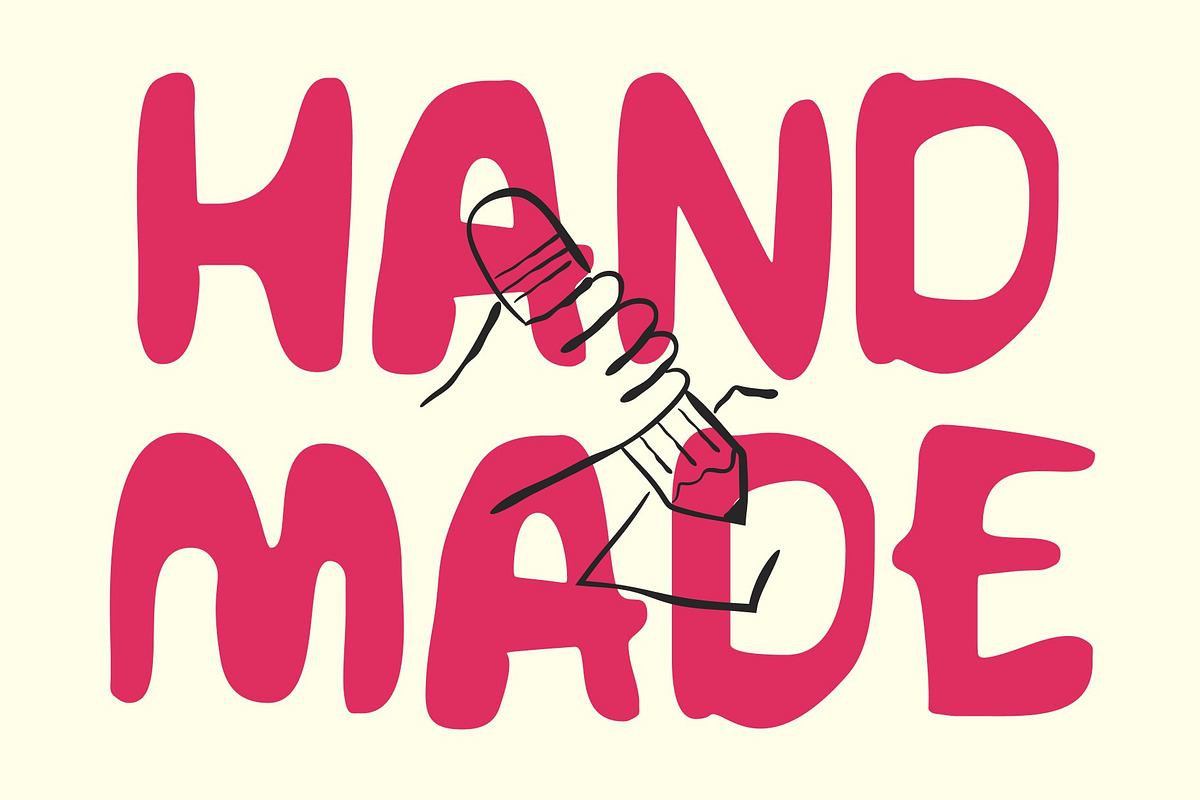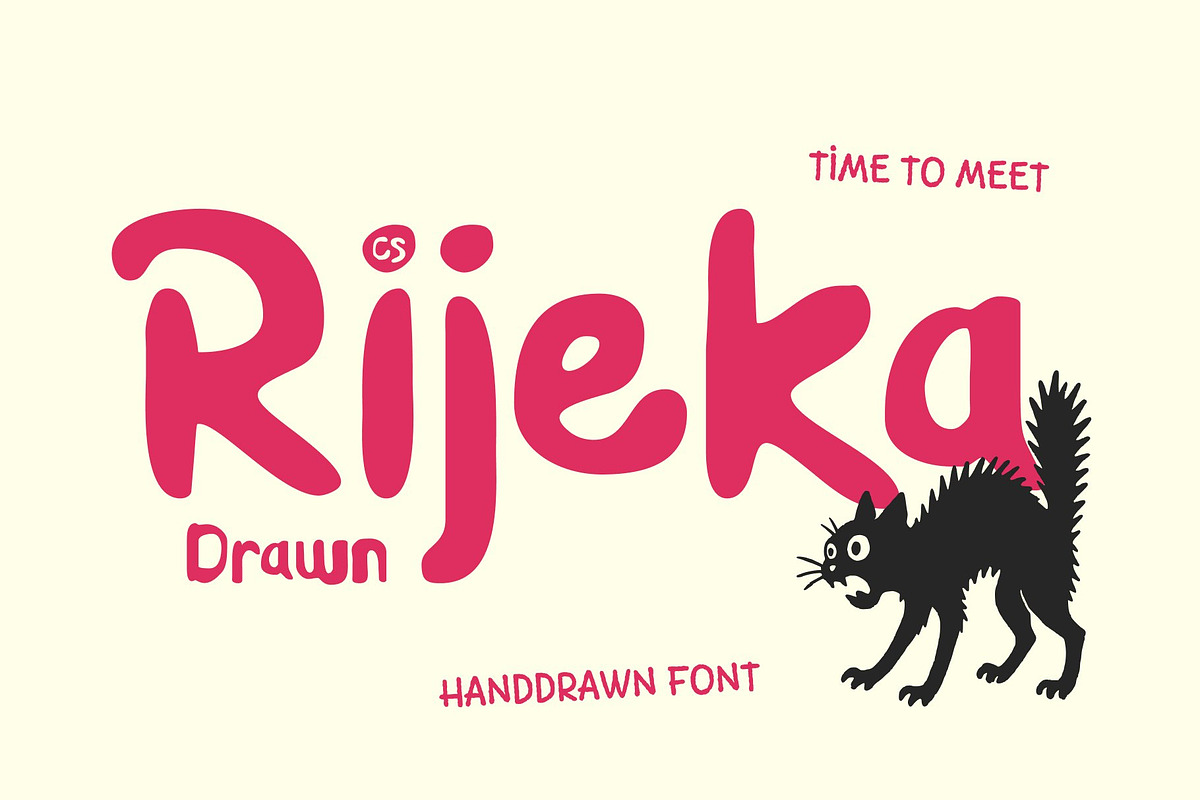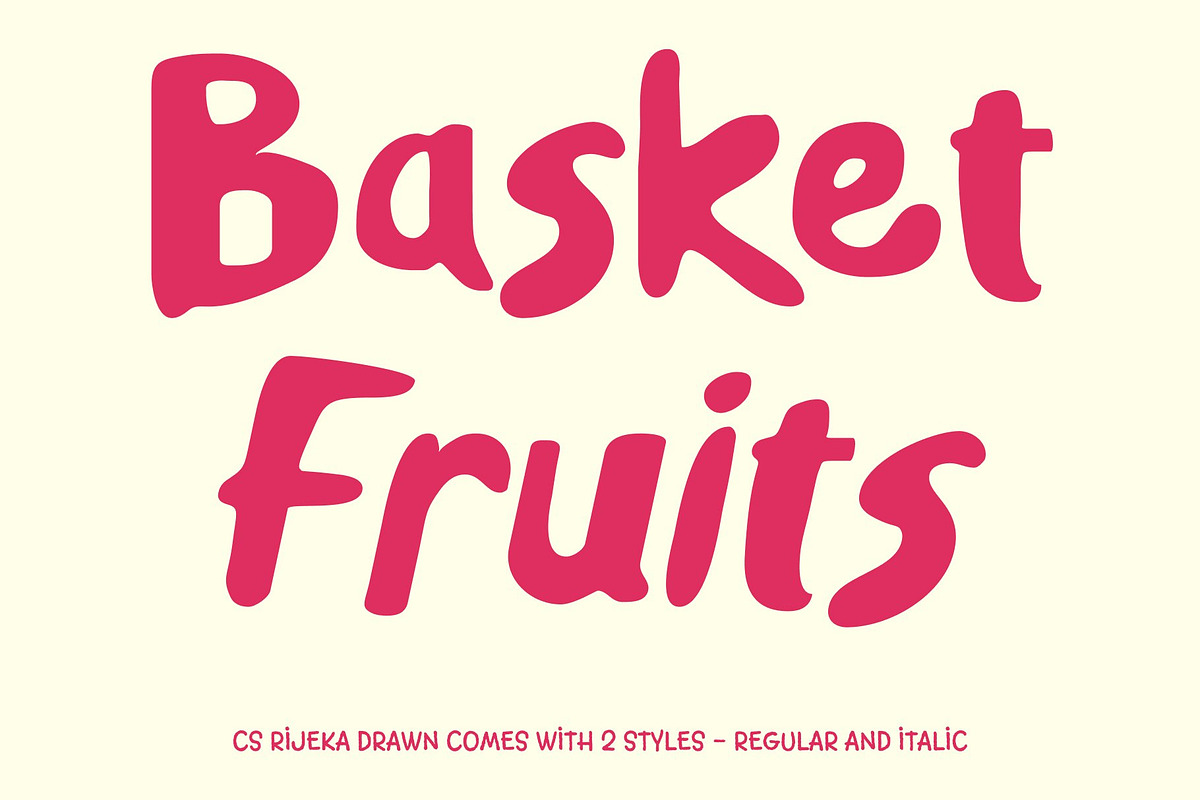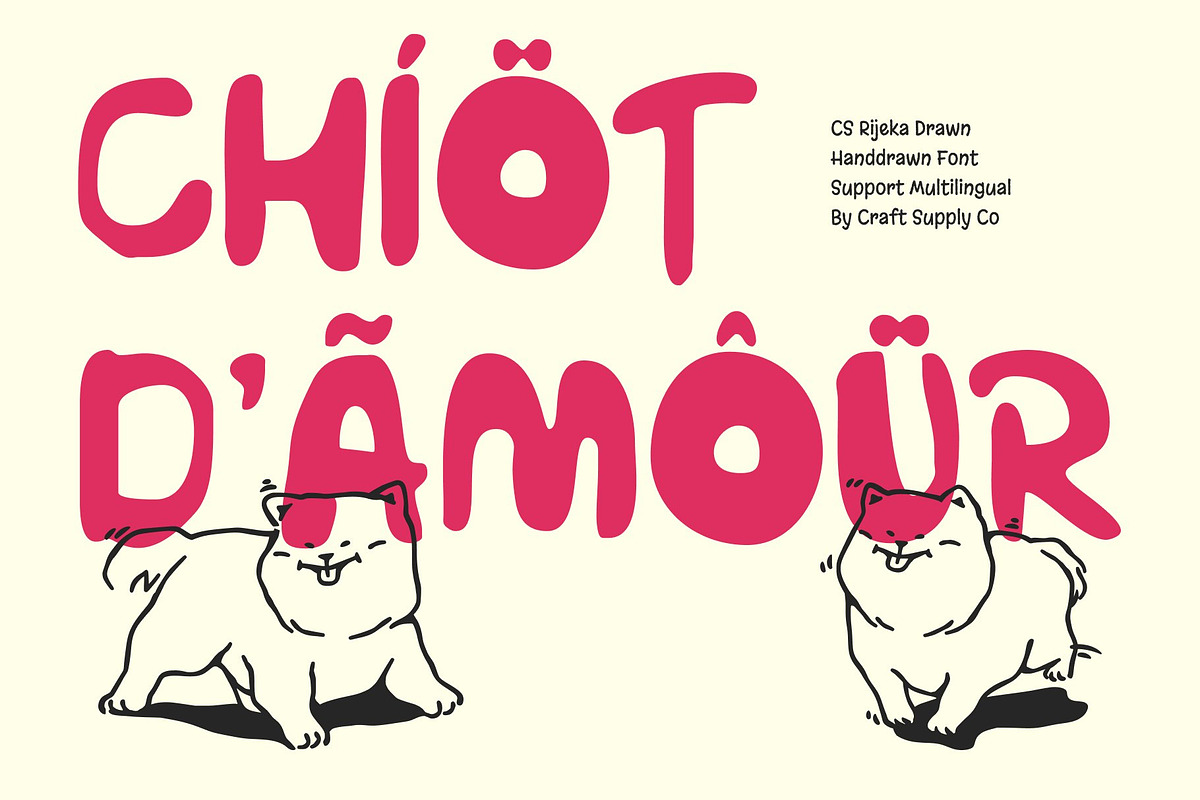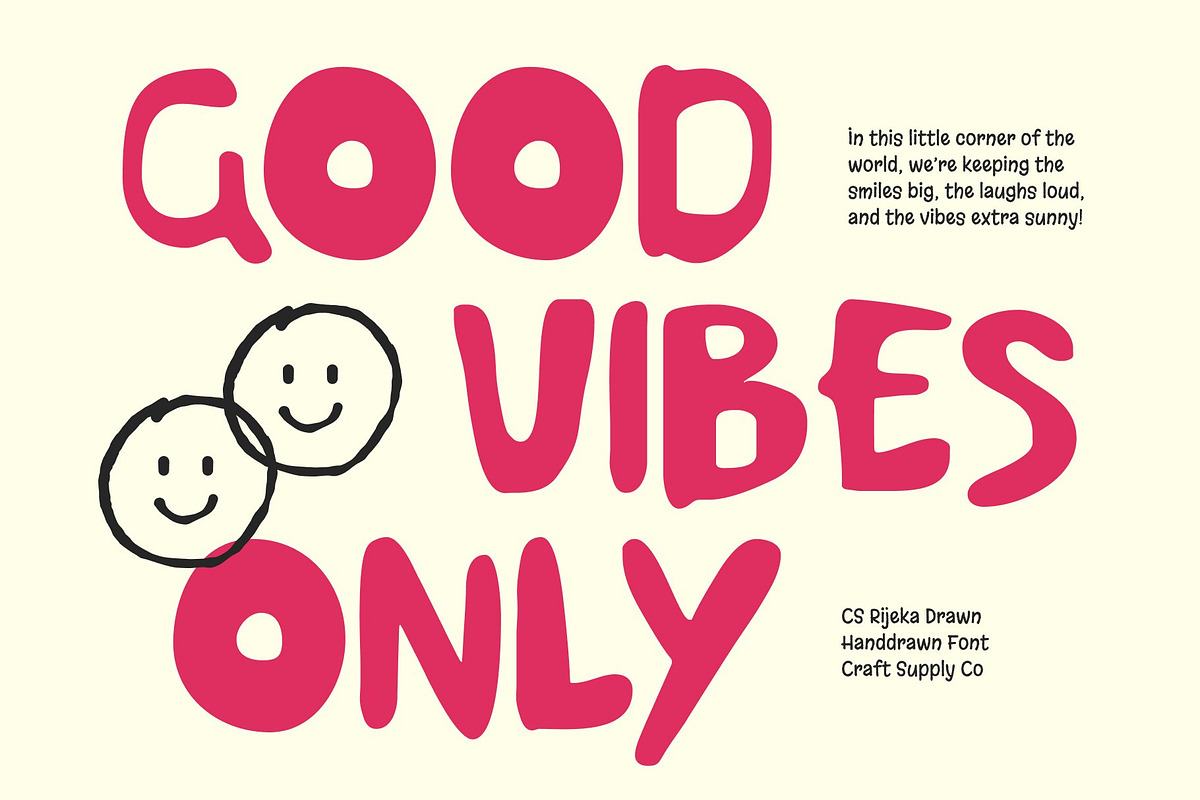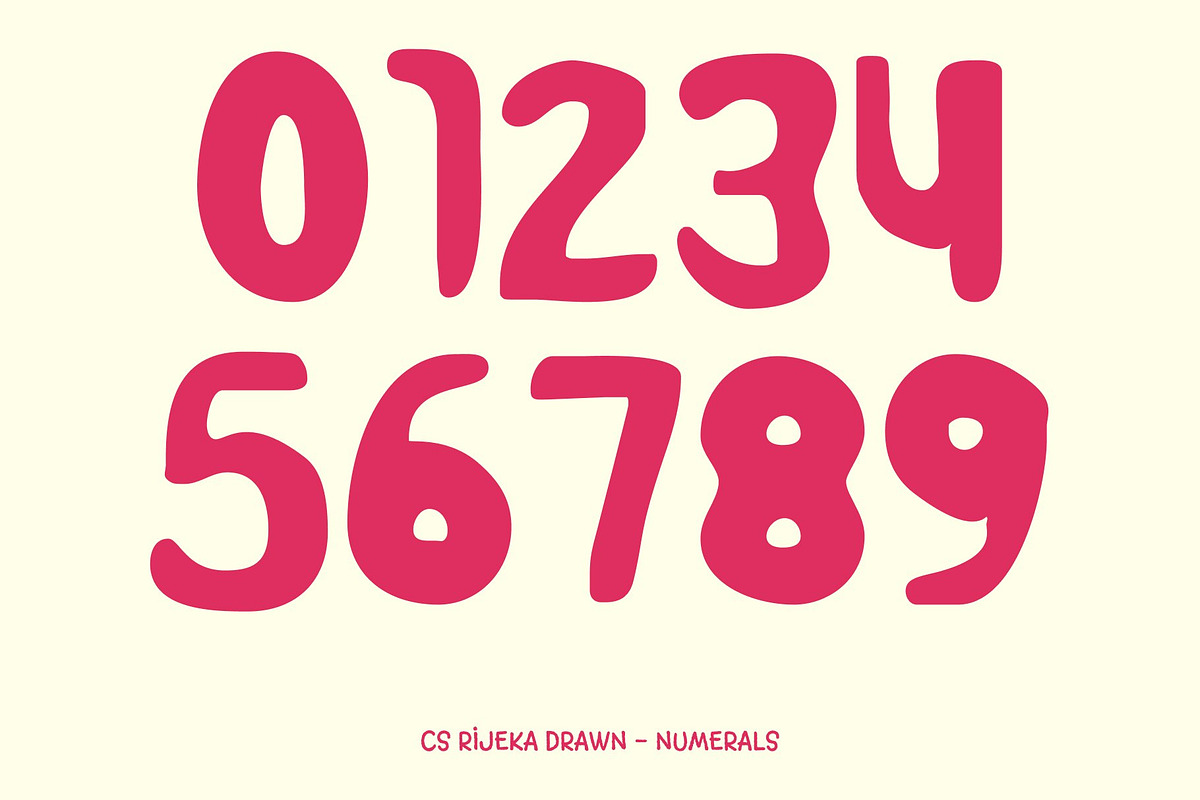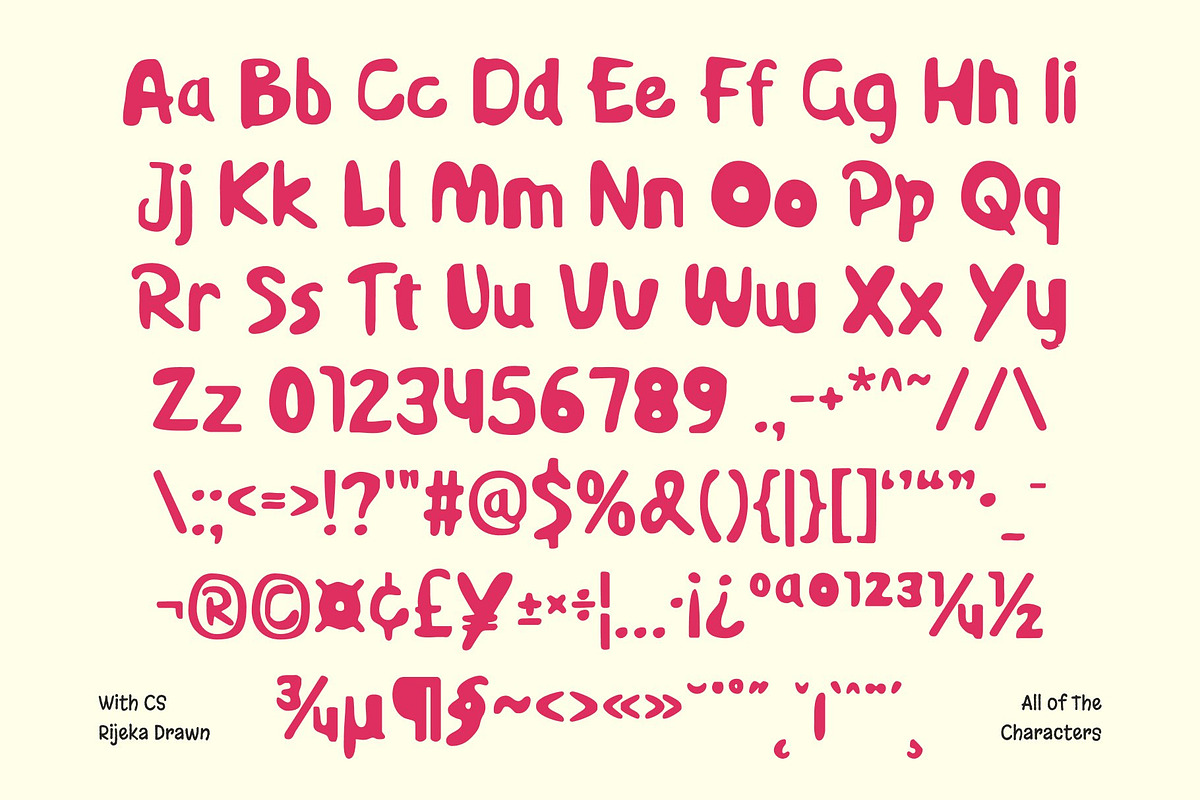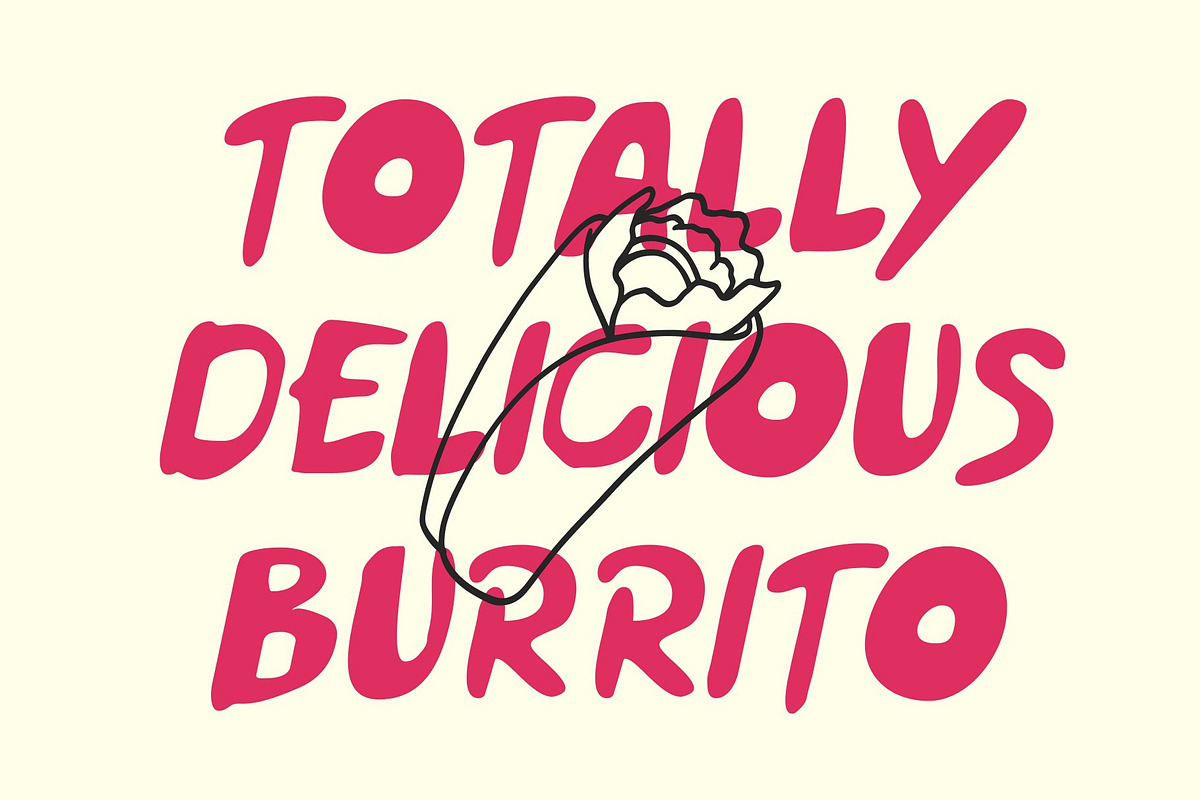
CS Rijeka Drawn
CS Rijeka Drawn – Playful Hand-Drawn Display Font
Modern Display Font with Fun Energy This is a playful, modern display font that brings charm and personality to any project. Its hand-drawn qualities give it a relaxed, approachable feel, making it perfect for designers looking to add warmth, creativity, and a unique human touch to their work.
Cute, Fun, and Joyful With its slightly abstract line structure, this font captures the spontaneity and energy of doodles while maintaining a friendly and cute character. The font radiates joy and playfulness, making it ideal for youth-oriented designs, children’s projects, or any context that benefits from a cheerful, lively aesthetic.
Perfect for Creative Applications From posters and illustrations to packaging, social media graphics, and decorative headlines, this font adapts effortlessly to a wide range of creative needs. Its casual yet stylish look makes it versatile for quotes, titles, or standout design elements that require a fun, engaging typeface.
Adds Personality as a Complementary Font This font also works beautifully as a complementary typeface, enhancing more structured layouts with its distinctive hand-drawn charm. Whether paired with clean sans-serifs or bold display fonts, it adds character, authenticity, and a playful edge to any design.